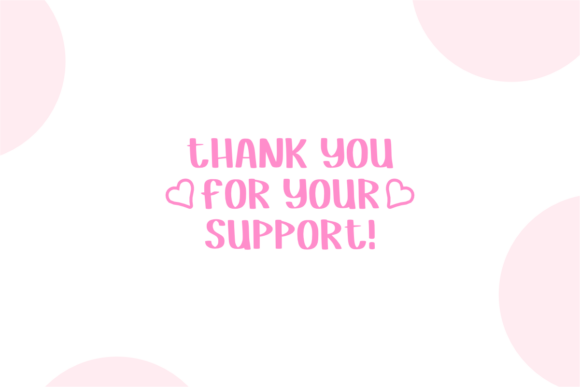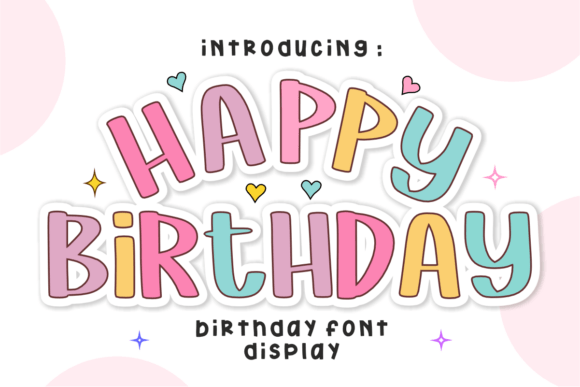
🎂 Happy Birthday Font – The Ultimate Celebration Companion 🎉
Are you tired of using the same old boring fonts for your party designs? Look no further! Introducing the Happy Birthday font, a cheerful, chunky, and super-playful display font that’s designed to turn every project into a party. With its bold, rounded strokes and whimsical “bubbly” feel, this font is the perfect choice for designers and crafters who want to add a touch of joy and celebration to their creations.
What Makes Happy Birthday Font So Special?
The Happy Birthday font is specifically crafted to radiate joy, excitement, and celebration. Its unique design features make it stand out from other fonts, making it the ultimate choice for:
- Custom cake toppers: Add a personal touch to your cake designs with a font that’s as sweet as the occasion.
- Vibrant birthday invitations: Create eye-catching invitations that set the tone for an unforgettable celebration.
- Adorable kids’ apparel: Design fun and playful clothing and accessories that kids will love.
Designed with Crafters in Mind
The Happy Birthday font is not just a pretty face; it’s also designed with high legibility and smooth cutting in mind. This makes it a dream for crafters who use:
- Cricut machines: Easily cut out intricate designs and letters with precision and accuracy.
- Silhouette machines: Create custom designs and shapes with ease and precision.
- DIY craft projects: Add a personal touch to your handmade creations with a font that’s easy to read and cut.
Why Choose Happy Birthday Font?
With so many fonts available, why choose Happy Birthday? Here are just a few reasons:
- Unique design: The Happy Birthday font has a one-of-a-kind design that’s sure to make your creations stand out.
- High legibility: The font is designed to be easy to read, even at small sizes.
- Smooth cutting: The font is optimized for smooth cutting, making it perfect for crafters.
- Versatile: Use the Happy Birthday font for a variety of projects, from party decorations to custom gifts.
Tips for Using Happy Birthday Font
Here are a few tips for getting the most out of the Happy Birthday font:
- Experiment with colors: Try pairing the Happy Birthday font with bright, bold colors to create a festive look.
- Mix and match: Combine the Happy Birthday font with other fonts and design elements to create a unique look.
- Use it for special occasions: The Happy Birthday font is perfect for birthdays, but you can also use it for other celebrations, like weddings and anniversaries.
The Happy Birthday font is the perfect addition to any designer’s or crafter’s toolkit. With its unique design, high legibility, and smooth cutting capabilities, it’s the ultimate choice for creating party-perfect projects. So why wait? Download the Happy Birthday font today and start celebrating in style! 🥳🌈
Whether you’re a seasoned designer or a DIY crafter, the Happy Birthday font is sure to bring a smile to your face and a touch of joy to your creations. So go ahead, get creative, and make every milestone memorable with the Happy Birthday font! 🎂